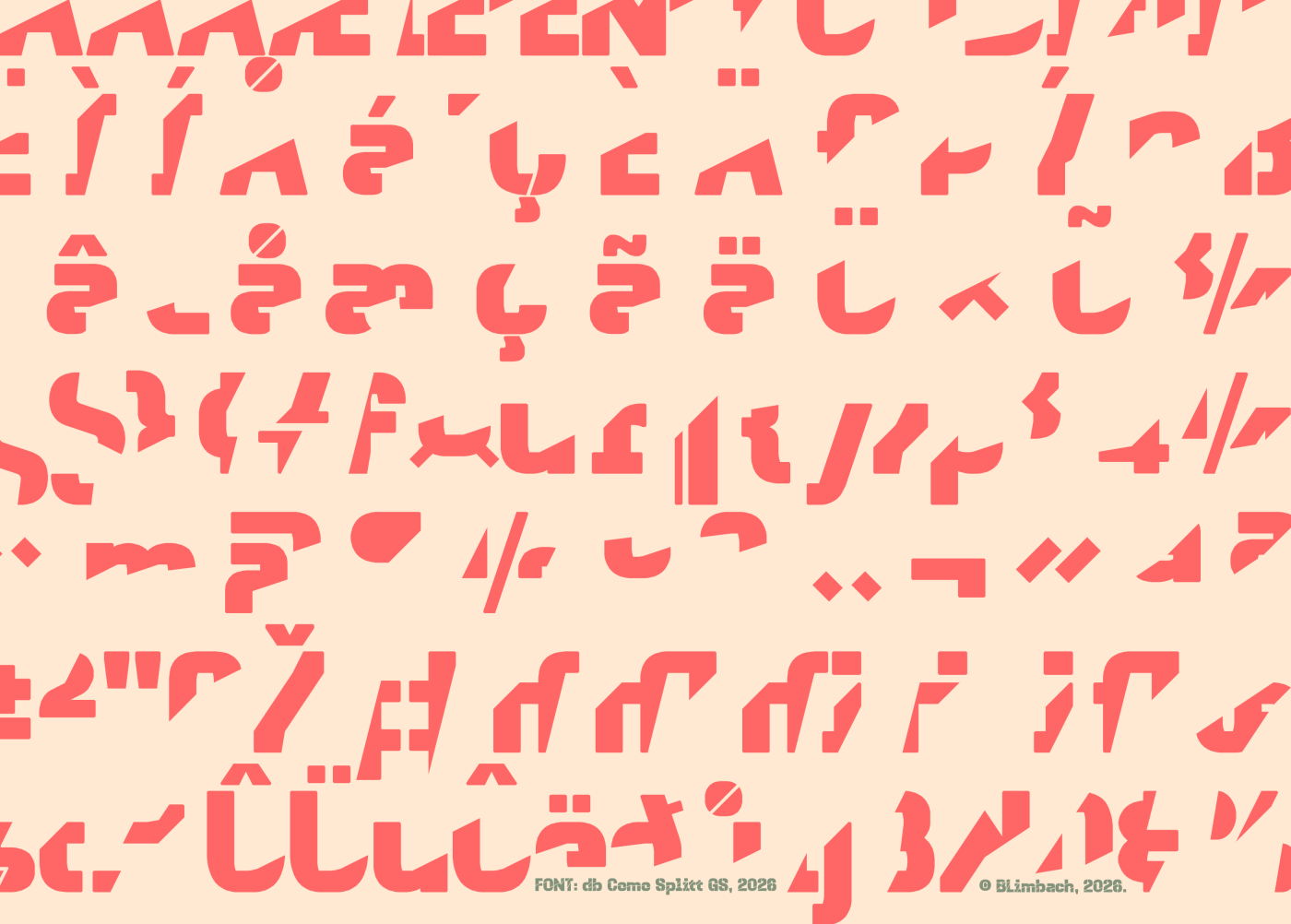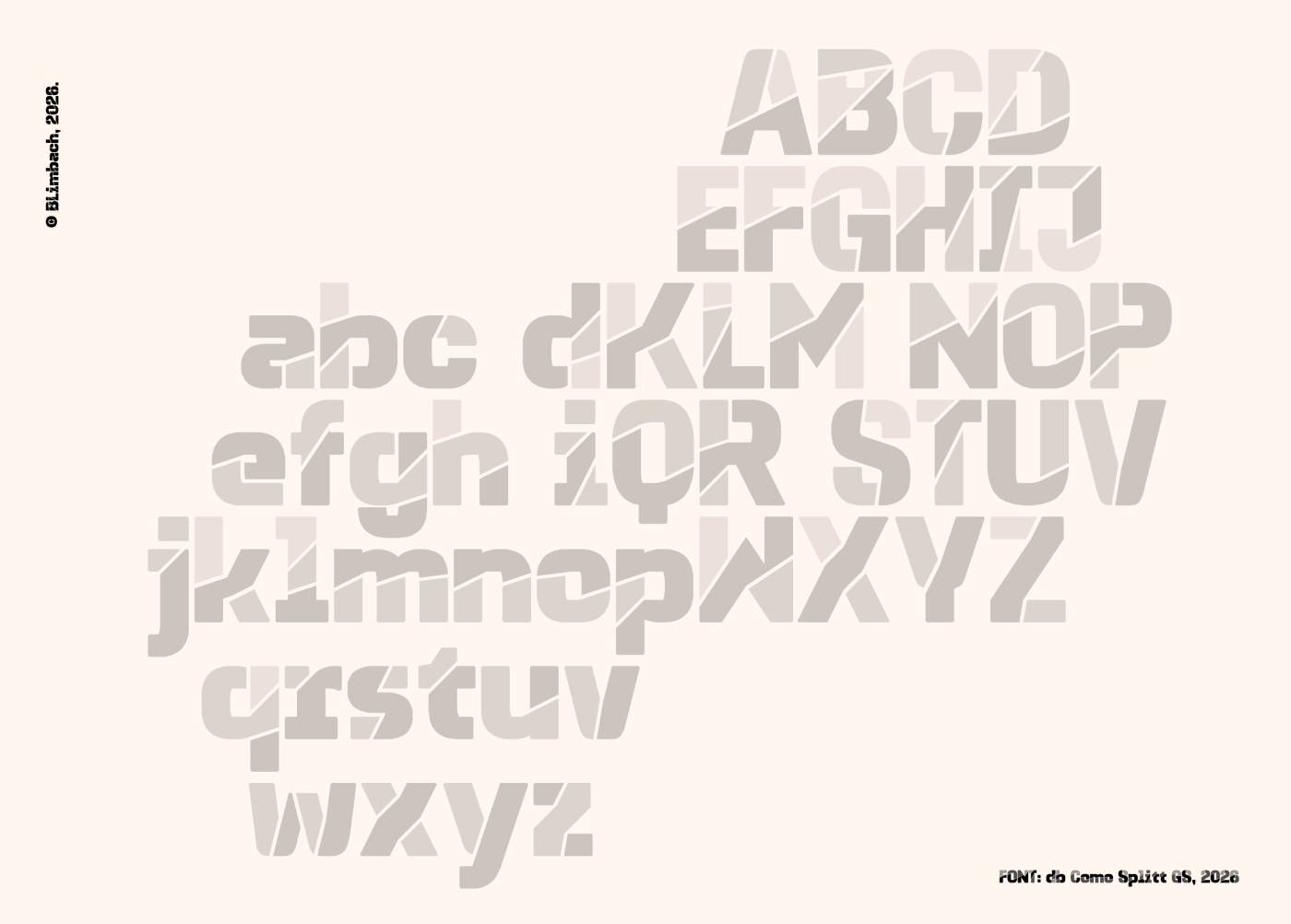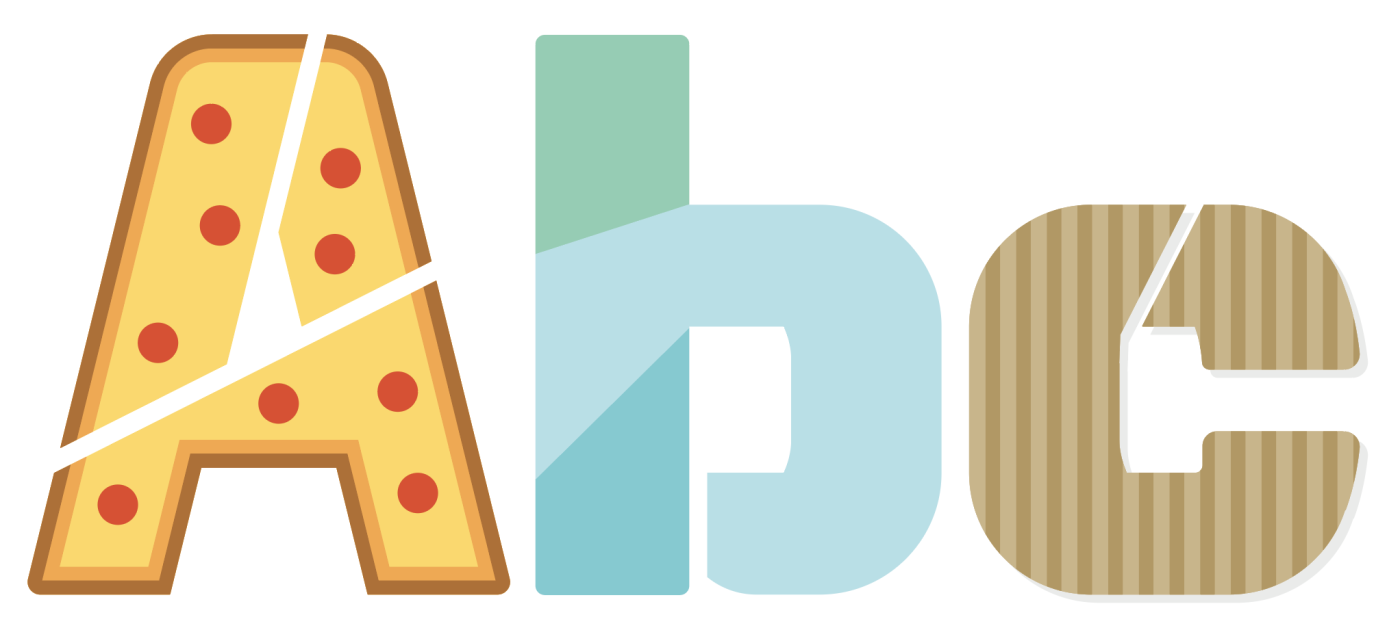
Here I present another variation of Como Splitt (startet in 2014) in grayscale. Some glyphs have been modified in their breaks, as well as a few other details such as curves and size.
db Como is one of my oldest typeface families, and I still enjoy working with it very much. It comes in various styles, such as Mono, Stencil, Sans Serif/Mix, as well as different weights.
Interesting variation on your Como family. I can foresee the splits being used in other ways, like pizza slices, stained glass, or cardboard cutouts. (✯ᴗ✯)
I don’t know how you manage this; pretty much everything you put out is a polished masterpiece.
@faux_icing: I beg to disagree. This would be far more applicatory at a bouldering gym. ;)
Heavy sans serif with playful stencil cuts at various angles. Extended Latin set. Great addition to the Como family. 10/10
PS: stray pixels at letter a and ‰.
@Gr4ftY @Luca: Perhaps this would make it easier to understand what I meant. But of course @beate these are just fun suggestions. The world is your oyster!
@faux_icing: Apologies, this was meant just to be poking fun—didn’t mean to start a debate. Sorry about that.
@Frodo Oh, thanks, I was having that old problem with the twisted bricks. I guess I overlooked them ; )
@faux_icing There are certainly many ways to decorate the pieces with various themes or patterns. It’s just like your favorite pizza…
Pretty nice font, but glyph alternates (possibly via .rand through Glyphs) to add variation would make it even better.
(The pizza themed A in that sample is making me hungry)
Okay, I'm not sure what you're trying to tell me here: about .rand through Glyphs? Do you mean the left boundary of the glyphs? Show me an example.
An excellent variant on your previous work!
@beate The left boundary of glyphs refers to the “lfbd” feature, which is called by the “opbd” feature, which stands for Optical Bounds, which is a GPOS feature. “Rand” stands for glyph randomization, which is a GSUB feature (preferably via type 3). The feature is especially useful for handwriting fonts and to add variation in words with multiple of the same letter in them.
The “through Glyphs” part means that Glyphs supports the creation and editing of color fonts.
An example of where this is used is a font called Punk Nova, which is an OpenType version of Donald Knuth's Punk font (sample in this comment shows the word Bookkeeper in the font mentioned, where the O's, K's and E's look different from each other).
(I keep putting “above”, when the sample is positioned below the comment it's attached to)
Another nice variation. I like it.